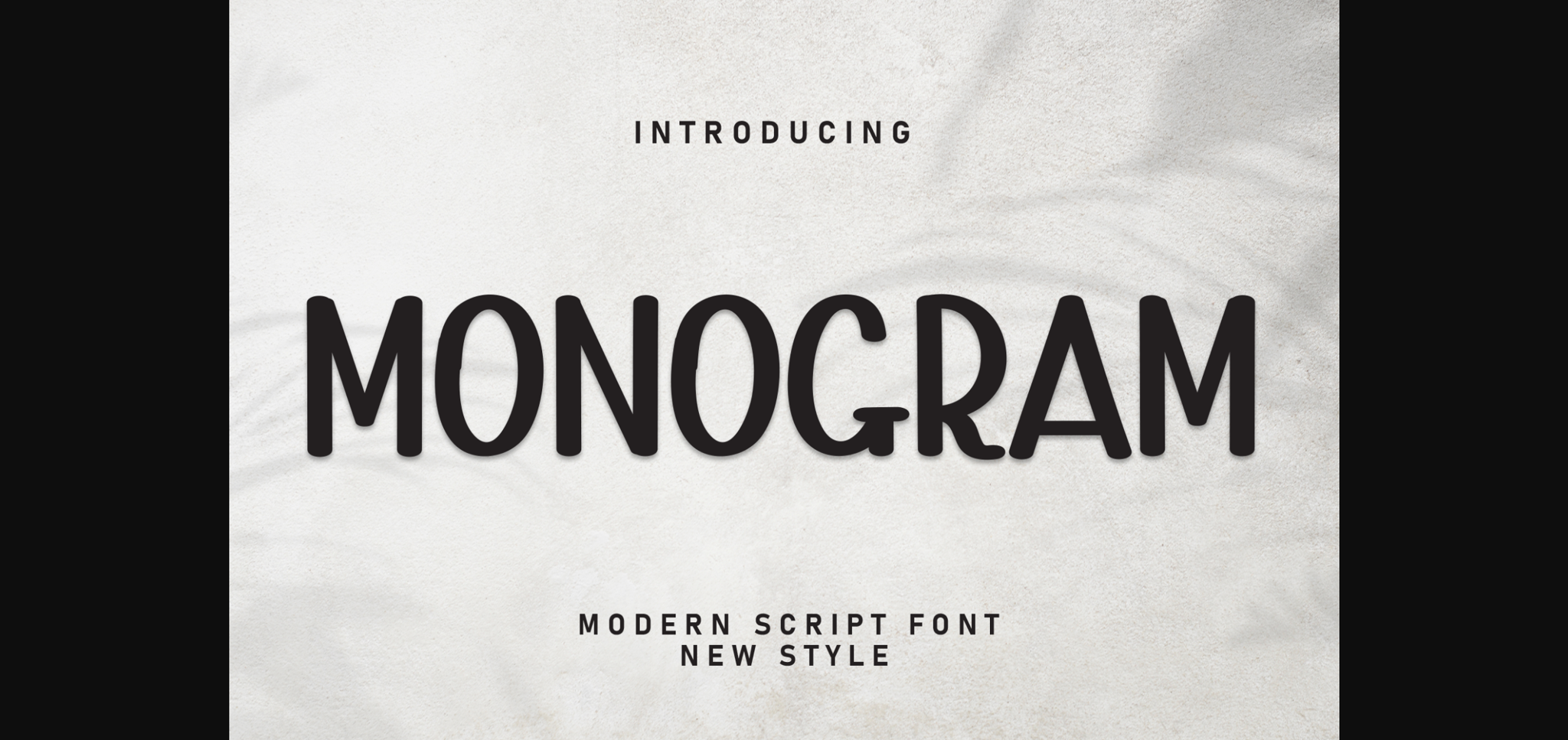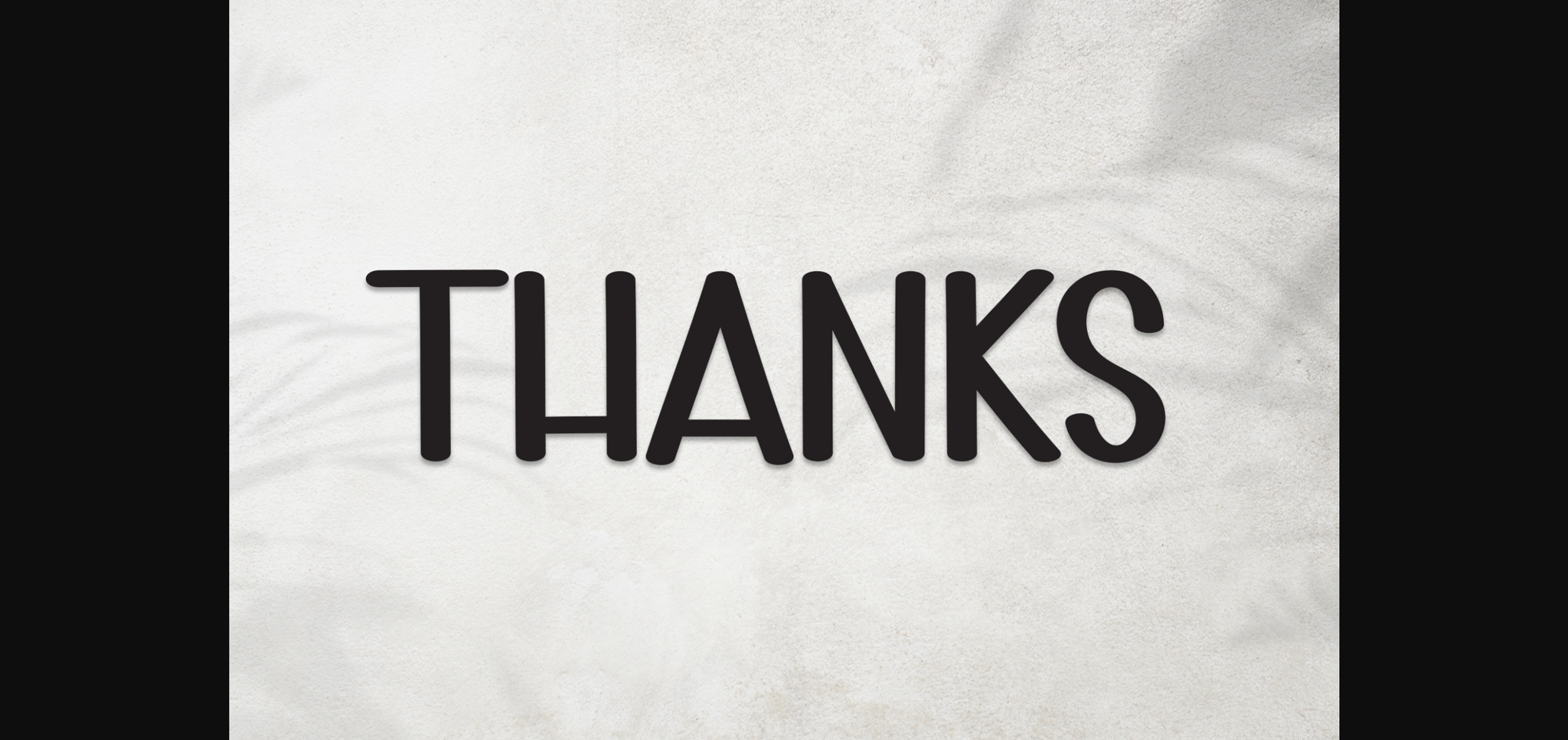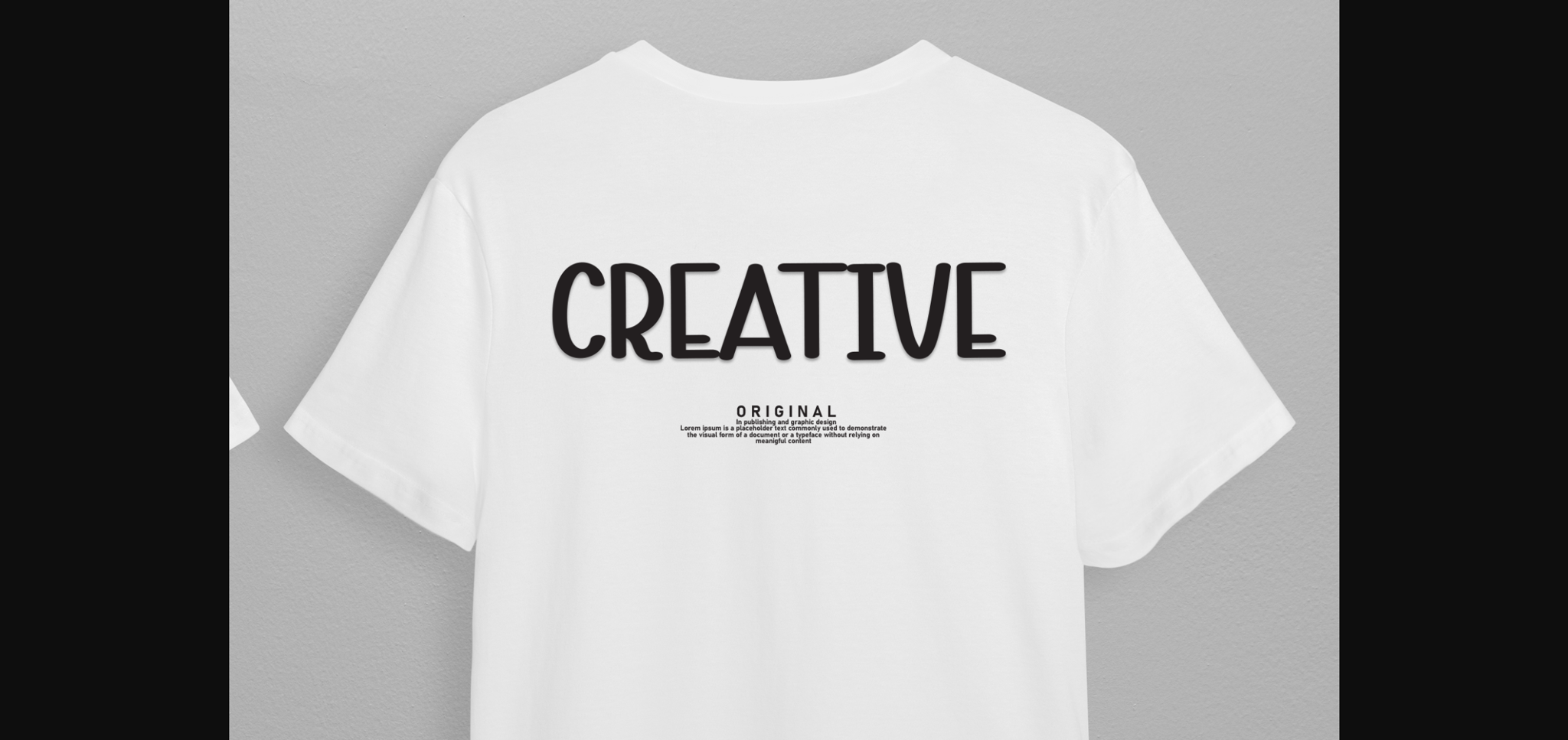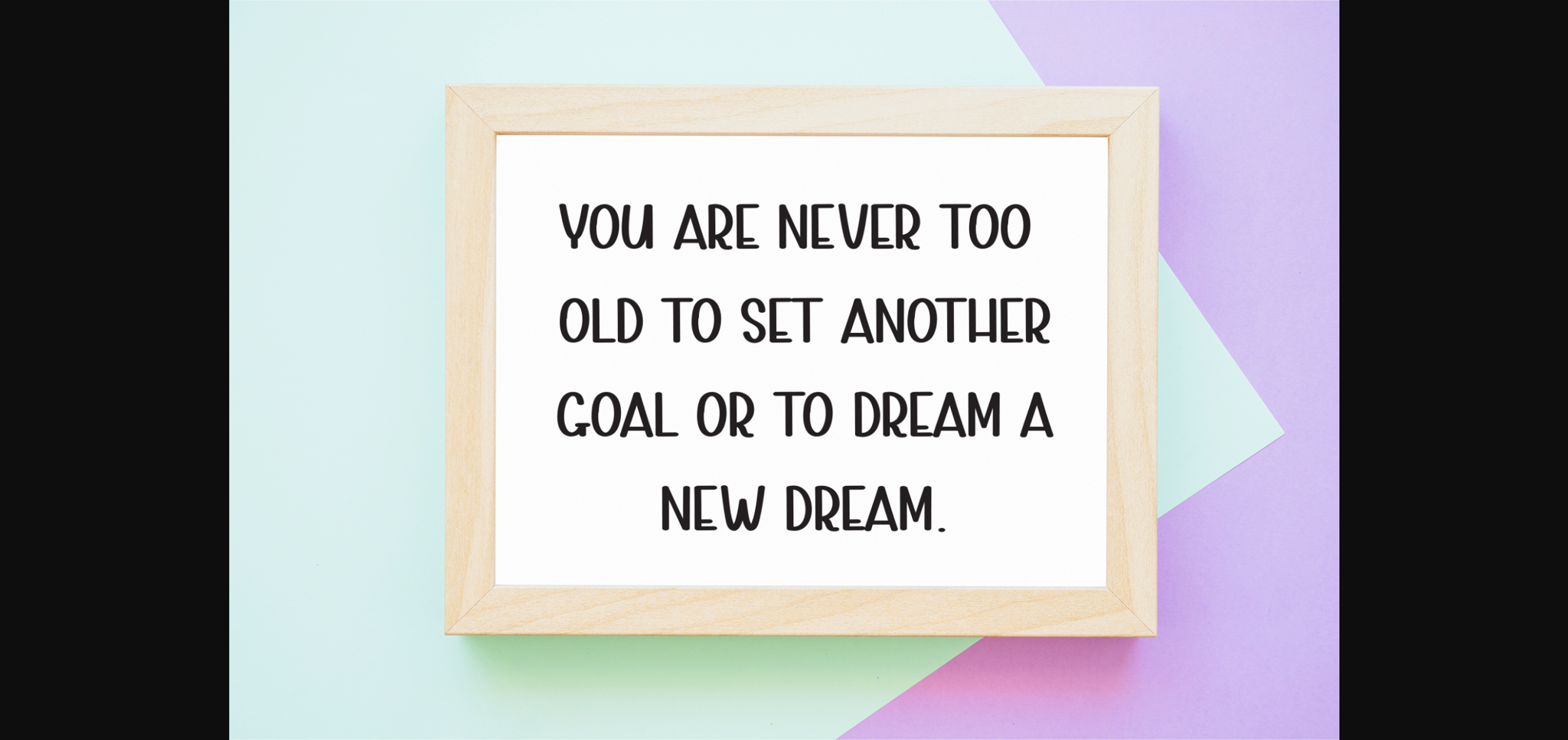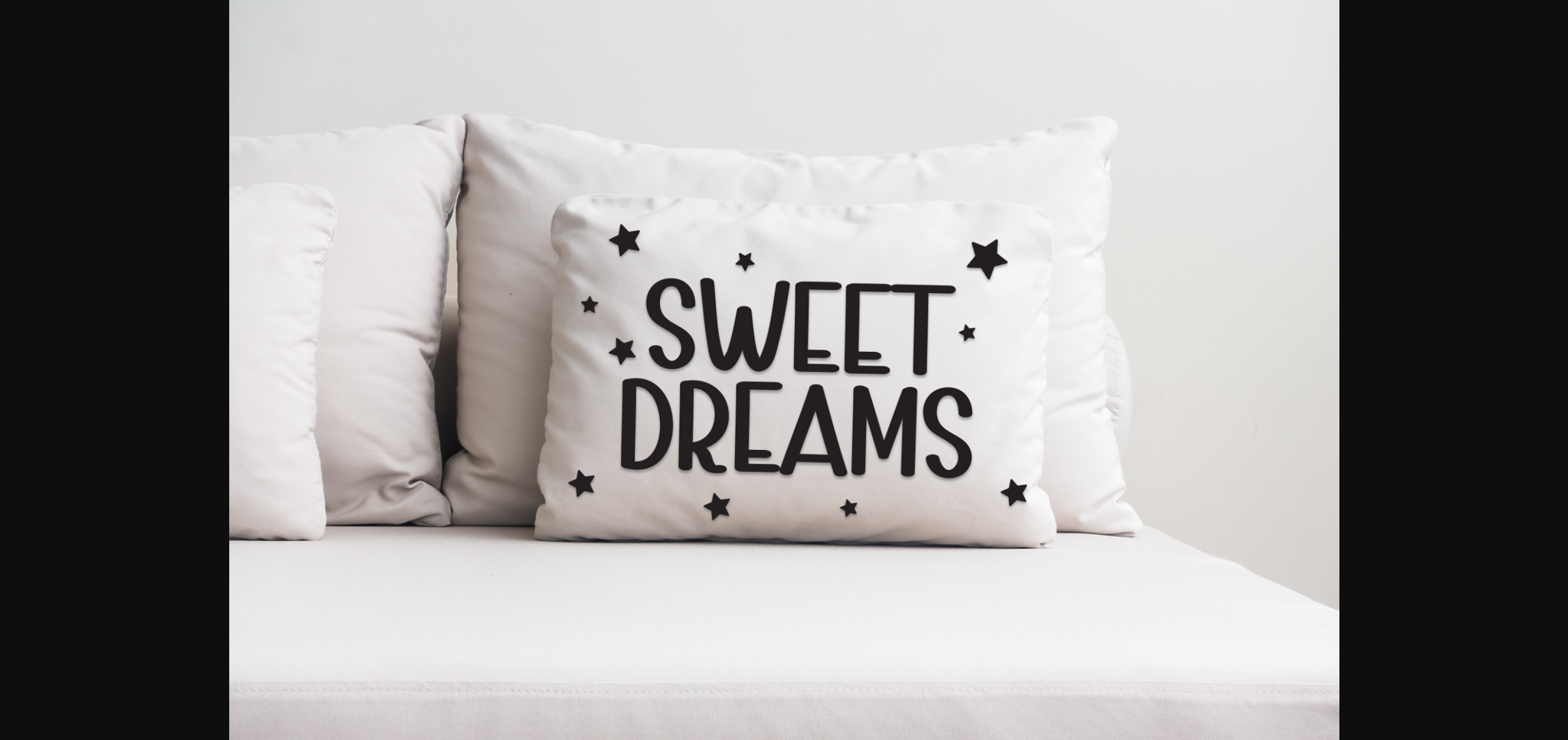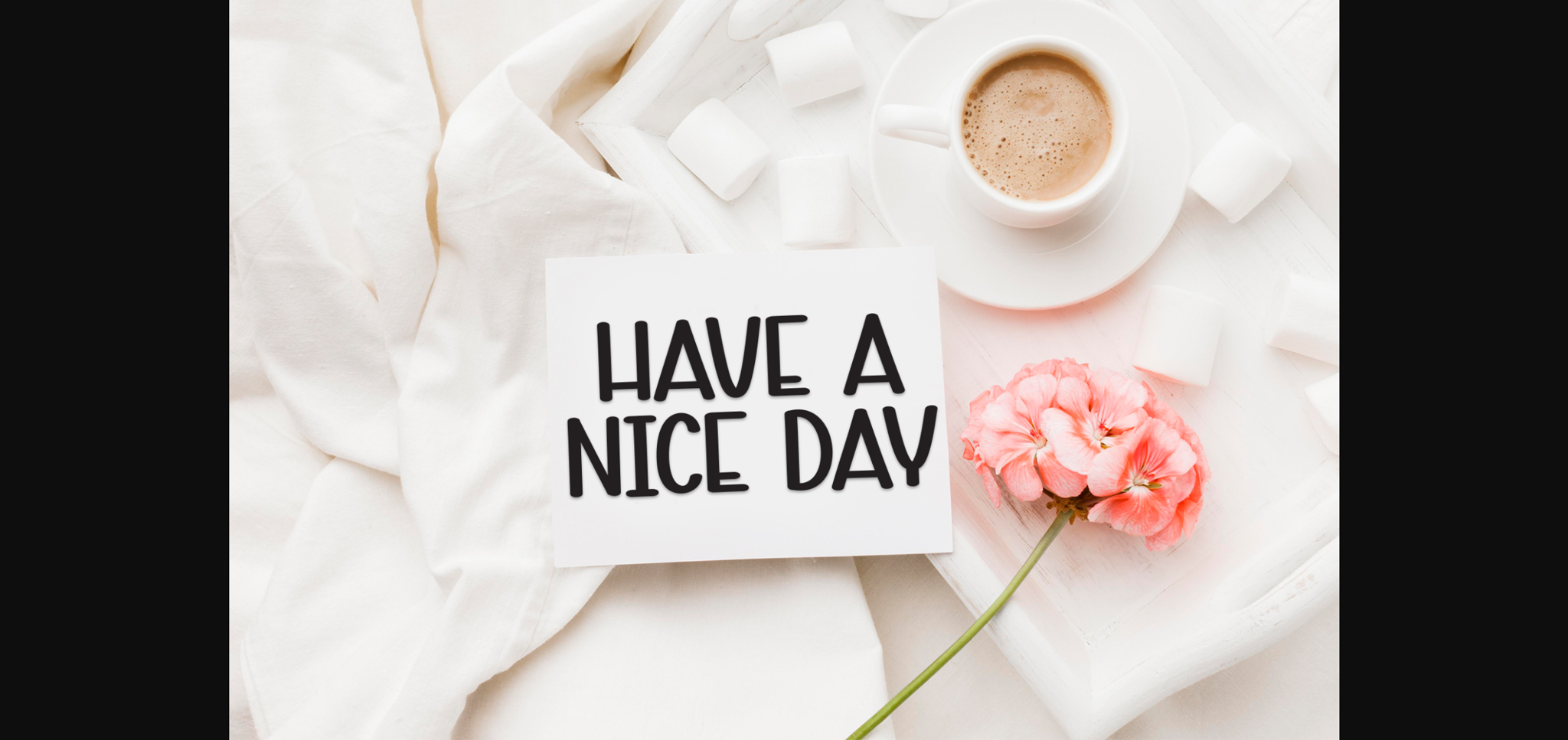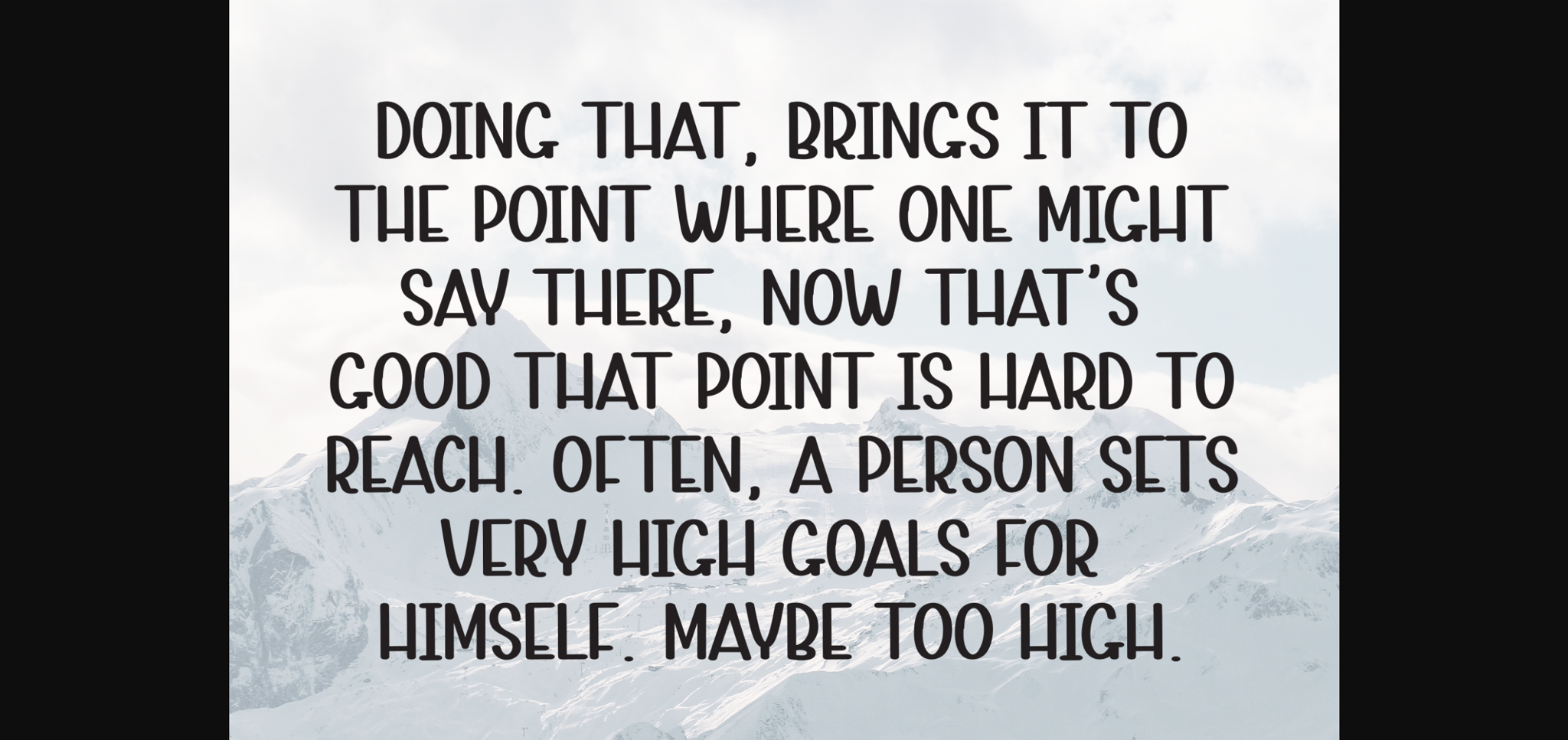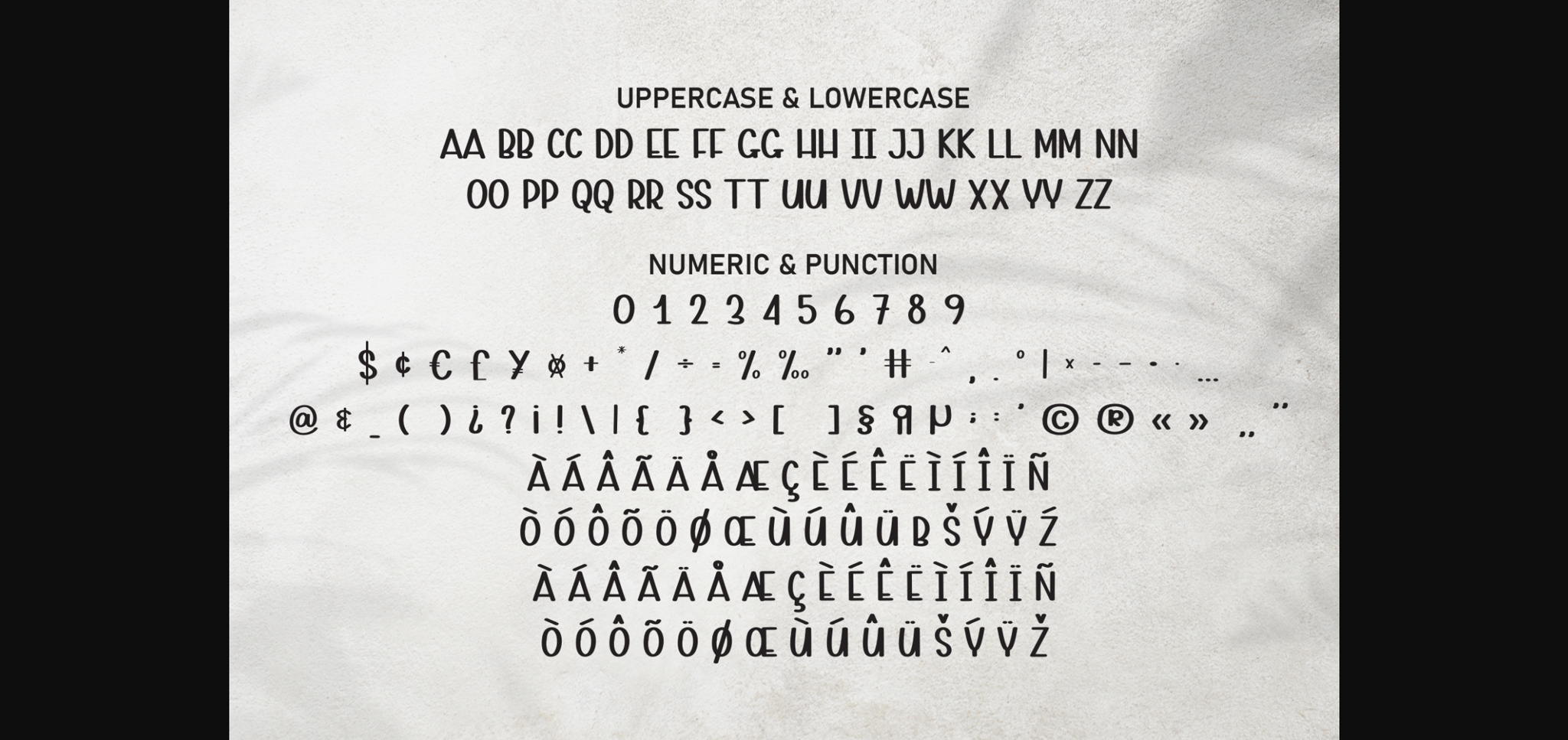
Monogram Font
About Monogram Font
Monogram is a charming sans-serif font that captures the essence of casual elegance. With its flowing strokes and natural feel, it brings a sense of warmth and personality to any project. Perfect for adding a touch of sophistication to invitations, branding, and creative designs.